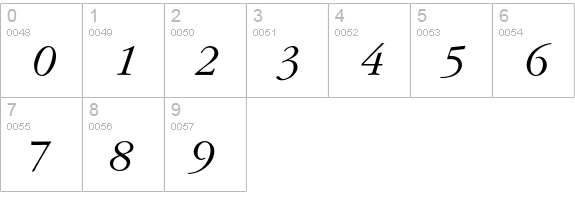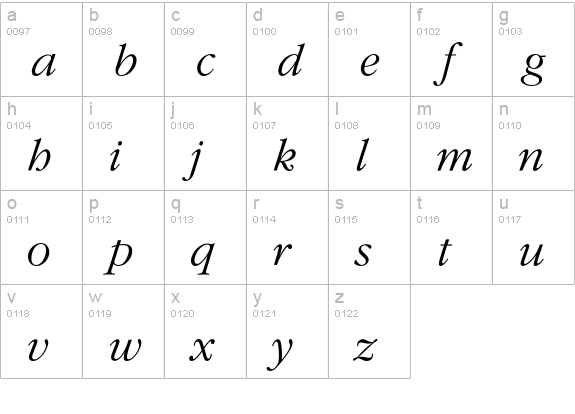
Garamond* Light Italic is a refined, elegant, italic variant in the Garamond* typeface family \xE2\x80\x94 well suited to elegant body text, refined sub-headings, and luxury branding.
The Garamond Light Italic font exudes elegance and sophistication with its delicate curves and slender strokes. Perfect for adding a touch of finesse to any project, this font strikes the perfect balance between classic beauty and modern flair. Its graceful italicized form lends a sense of movement and fluidity to the text, making it ideal for conveying a sense of elegance and refinement. And the best part? Garamond Light Italic font is available for free download at FontsMarket.com. Embrace the timeless charm and versatility of this exquisite font as you elevate your designs to new heights. Let Garamond Light Italic be your go-to choice for projects that demand a touch of sophistication and grace. Download it today and watch your designs come to life with a touch of classic beauty.